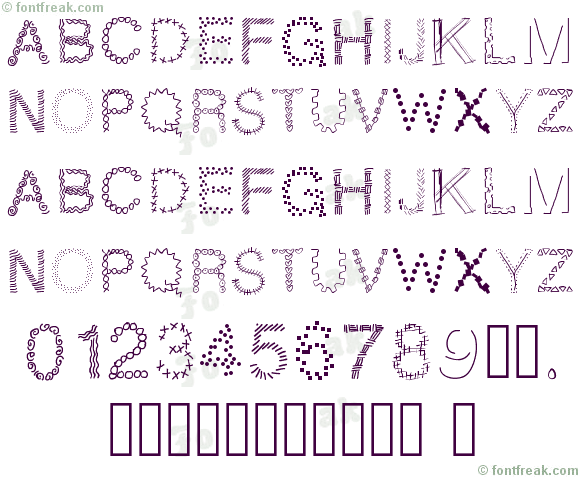
About PWPatchwork
PWPatchwork by Peax Webdesign is a unique decorative font that brings a playful and artistic flair to your projects. This freeware font showcases a combination of various shapes and styles, making it a standout choice for those looking to add a creative touch. The characters display a diverse mix of patterns, including dots, swirls, and lines, which contribute to its whimsical appearance. The stroke weight varies, giving each letter a distinct personality while maintaining a cohesive look. The spacing between characters is thoughtfully designed to ensure readability, even with its intricate decorations.
Ideal for a wide range of applications, PWPatchwork shines in creative projects such as wedding invitations, where its charming design can enhance the romantic theme. It also works well for children’s book covers, capturing the imagination and attention of young readers. Restaurant menus can benefit from this font’s playful nature, inviting patrons to enjoy a unique dining experience. Additionally, it is perfect for crafting eye-catching posters for events or art shows, helping to draw in an audience with its vibrant style.
The target audience for PWPatchwork includes graphic designers, small business owners, and content creators who seek to infuse their work with originality and personality. Its distinctive look allows users to stand out in a crowded market, making their designs memorable and engaging.